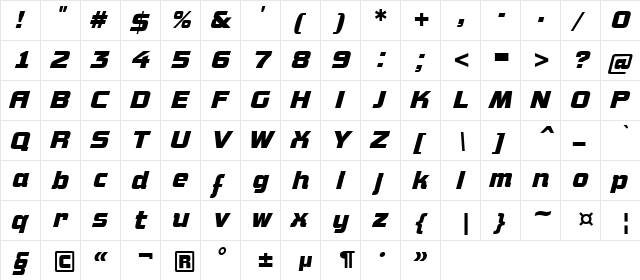
a_Concepto BoldItalic
Design Context for a_Concepto Typeface
a_Concepto takes a measured approach to typography — its balanced proportions and neutral character make it a reliable workhorse for both digital and print work. The dynamic lean of this cut emphasises speed and emphasis in any layout. The heavy weight commands attention and anchors typographic hierarchies.
Pro Tip: Use a_Concepto for emphasis, pull quotes, and subheadings where its slanted energy can add rhythm to the layout.